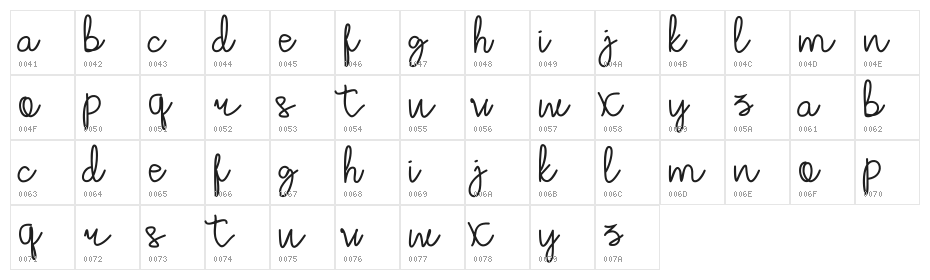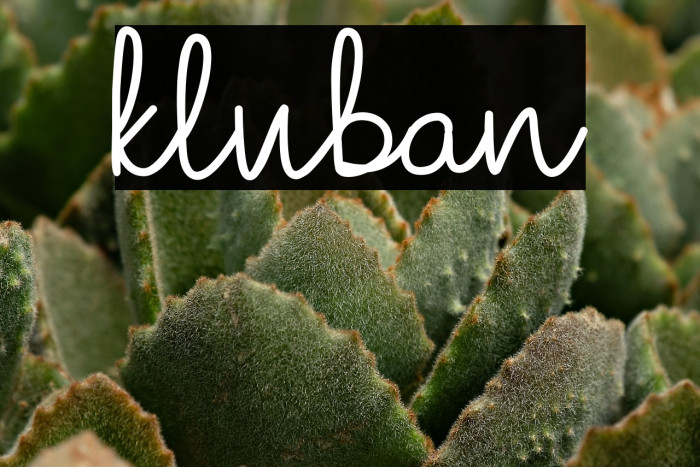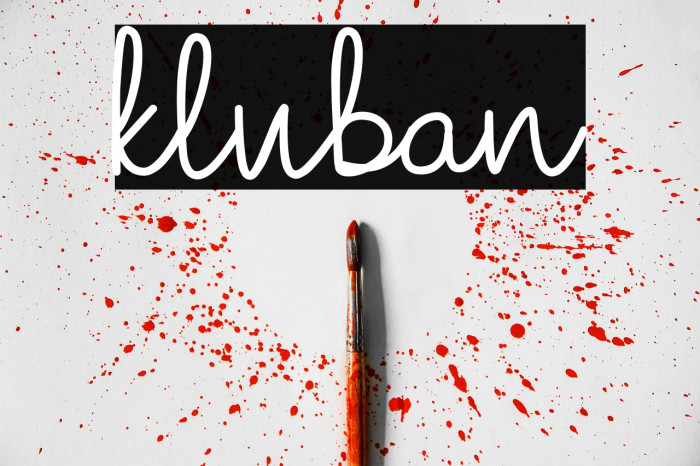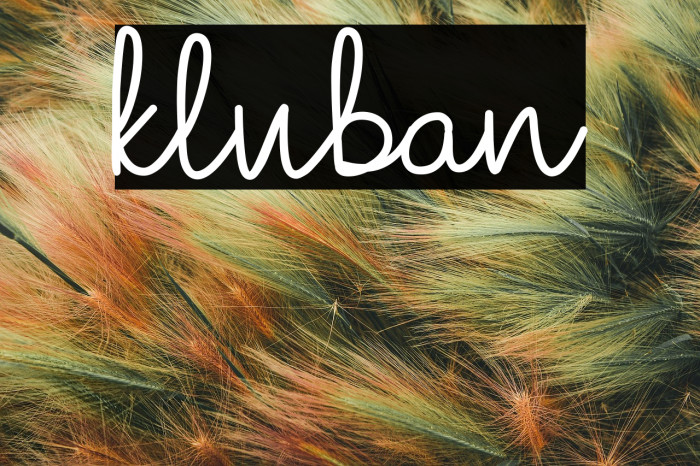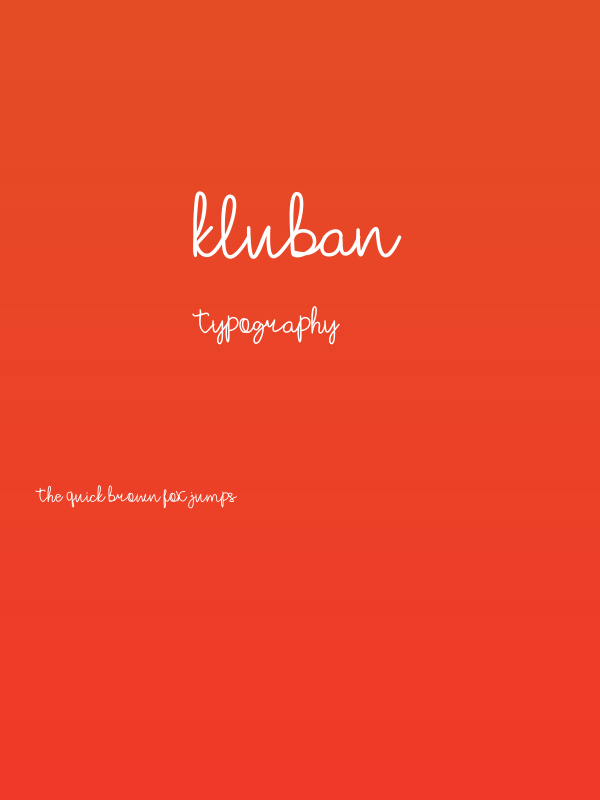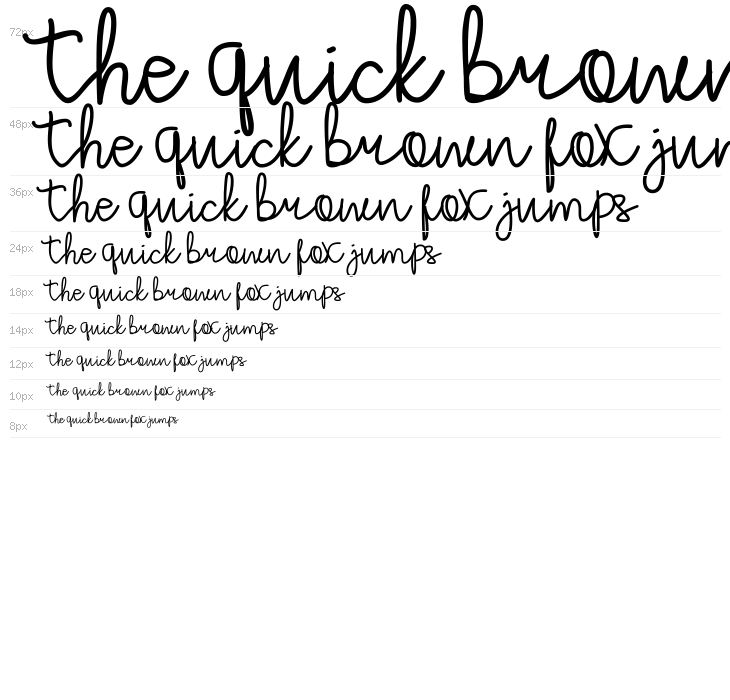
kluban Font
kluban Description
This font features a playful and casual handwritten style, characterized by its fluid and connected letterforms. The strokes are consistent in width, giving it a uniform appearance, while the loops and curves add a touch of whimsy. The letters are slightly slanted, enhancing the informal and relaxed feel. This font is well-suited for projects that require a personal touch, such as greeting cards, invitations, or social media graphics. Its legibility and charm make it a versatile choice for various creative applications.
| Proposed Projects | Ideal for greeting cards, invitations, social media graphics, and personal branding. |